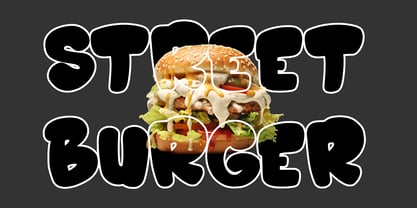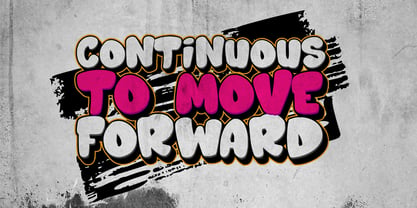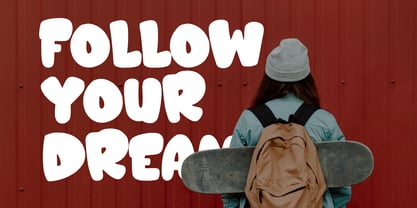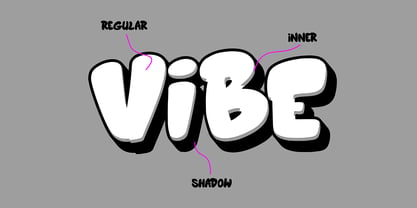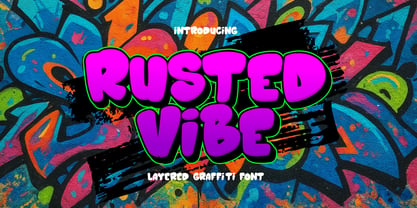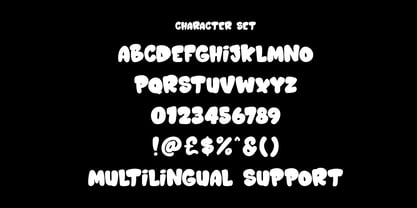
Rusted Vibe
Rusted Vibe is a layered graffiti font that captures the playful, bold, and energetic spirit of street culture. Inspired by bubble graffiti lettering and the colorful textures found in urban murals, this font was designed to deliver a fresh, youthful vibe with a modern twist. Each character is rounded, bold, and expressive—perfectly imitating the friendly and fun side of graffiti art that pops with personality.
Unlike aggressive wildstyle graffiti, Rusted Vibe takes a more approachable form while still carrying the raw aesthetics of street lettering. Its layered design allows you to create multiple color effects—perfect for adding depth, highlights, shadows, and 3D vibes to your projects. Whether you want a clean solid look, a bright neon outline, or a bold layered combo, Rusted Vibe gives you the tools to make your designs shine.
This typeface is incredibly versatile, suitable for poster design, kids and youth apparel, hip-hop party flyers, social media graphics, streetwear branding, playful logos, comic-inspired artwork, merchandise, stickers, packaging, and creative typography compositions. With its smooth shapes and bold presence, Rusted Vibe is designed to grab attention and leave a lasting impression.
It comes with uppercase, lowercase, numerals, punctuation, multilingual support, and stylistic alternates, ensuring that your creative freedom is never limited. The layered system allows you to experiment endlessly by stacking different styles and applying vibrant colors.
Why designers love it:
• Fun and bold bubble graffiti style
• Layered system for creative color effects
• Works perfectly for youth and urban designs
• Multilingual support for global projects
Rusted Vibe is not just a font—it’s a design toolkit that lets you bring street art energy into your projects. With its layered graffiti style, you can create authentic and eye-catching lettering that feels both playful and powerful.